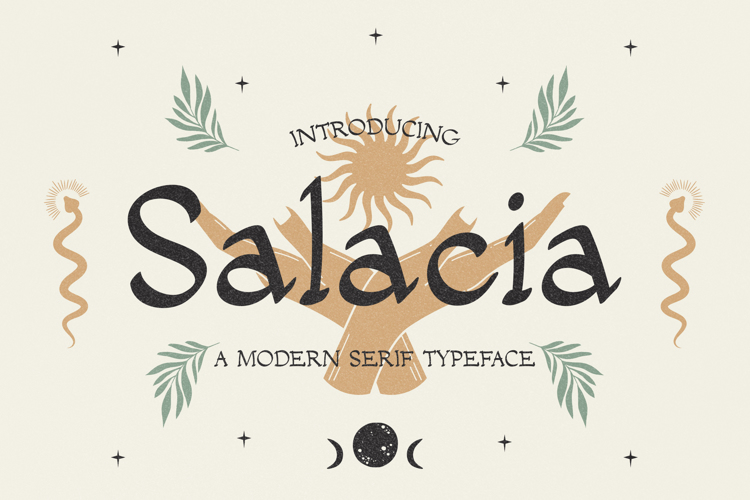
Salacia Font
About Salacia Font
Salacia is a modern serif font. Elegantly crafted and easily be matched to an incredibly large set of projects, so add it to your creative ideas and notice how it makes them stand out! Use Salacia to achieve an exquisite, yet subtle look and maximum versatility.